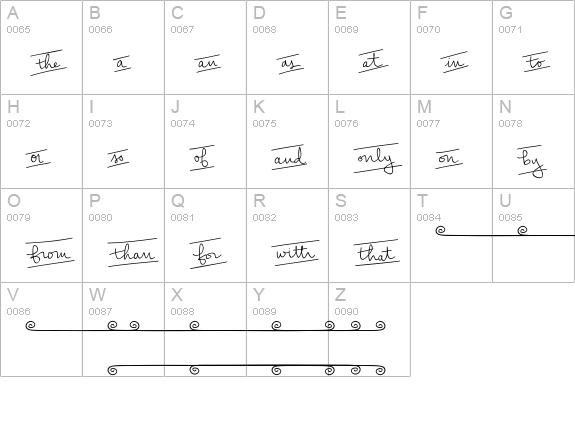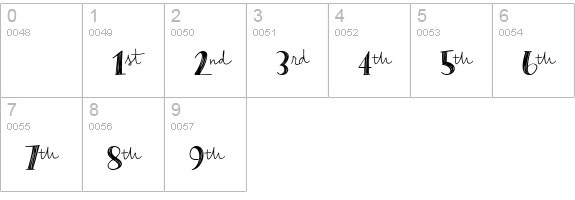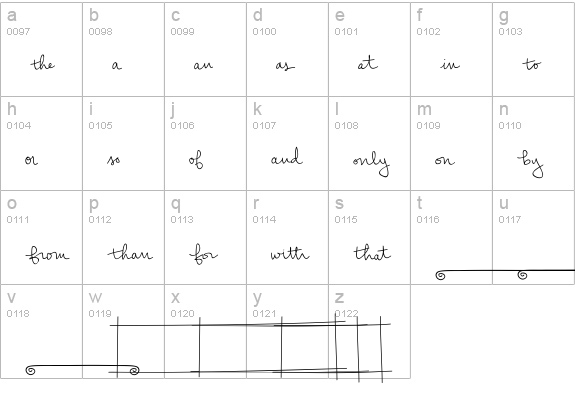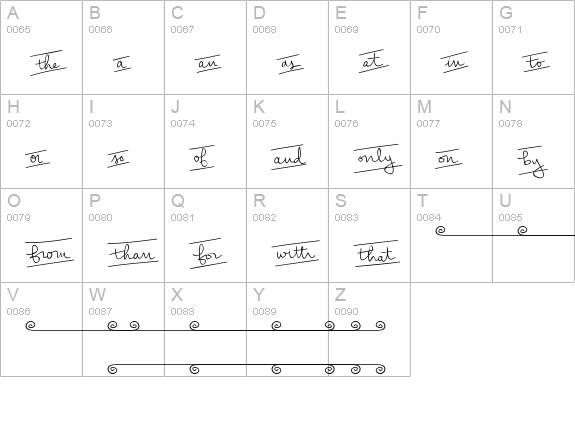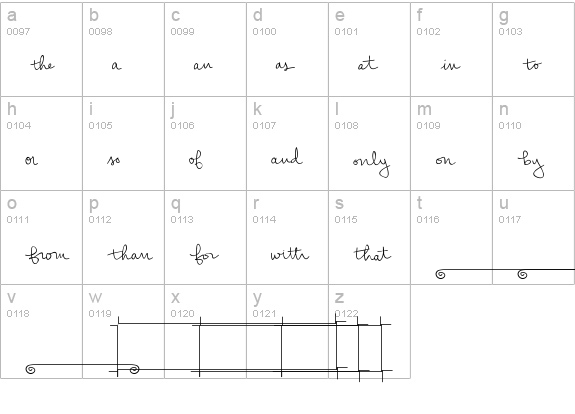
Peas & Carrots Extras font is a delightful and whimsical typeface that will add a touch of playfulness to any design project. This font is perfect for creating eye-catching headlines, greeting cards, invitations, and more. With its charming hand-drawn style, Peas & Carrots Extras font captures the essence of childlike wonder and creativity. But what sets this font apart is that it is absolutely free! Yes, you read that right. Peas & Carrots Extras font is freely available to download at FontsMarket.com. You can now enhance your designs without breaking the bank. Whether you're a professional designer or a hobbyist, this font is a valuable addition to your collection. Each character in the Peas & Carrots Extras font is carefully crafted, creating a harmonious and cohesive look. From doodles and illustrations to decorative elements and borders, this font offers a wide range of extras that will bring your designs to life. The playful and quirky nature of these extras adds a touch of whimsy and originality to your projects. The versatility of Peas & Carrots Extras font is another reason why it is a must-have for any designer. This font can be used in various contexts, from children's books and posters to social media graphics and branding materials. It's a font that knows no bounds and can adapt to any creative vision. So why wait? Head over to FontsMarket.com and download Peas & Carrots Extras font for free. With its captivating design and unlimited potential, this font is sure to become a favorite in your font library. Let your imagination run wild and create designs that are as unique as you are with Peas & Carrots Extras font.